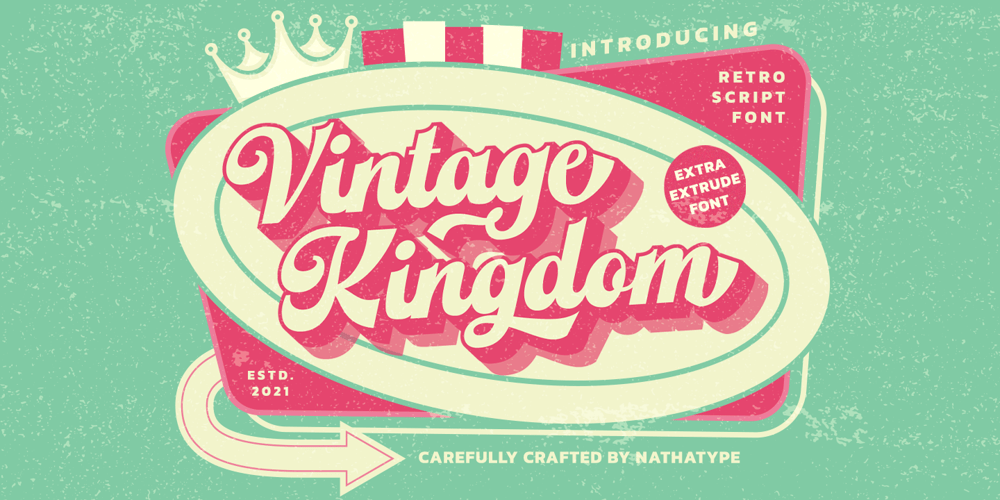
Vintage Kingdom Font Family was designed by Donis Miftahudin and published by Nathatype. Vintage Kingdom contains 2 styles and family package options. Are you ready to make your branding stand out? Do you dream of creating headings that stand out and inspire creativity, imagination, modernity, and endless fun? Looking for an elegant and stylish font? We’ve got what you want.Vintage Kingdom-A Script FontVintage Kingdom a gorgeous font designed with strong outlines and fat strokes to bring your branding to life and add a touch of retro and fun. This font features thick and angular letters that easy on the eyes and nice to look while it’s also easy to read. Vintage Kingdom becomes more special with extruding version option. Perfect to create amazing headings, logos, menus, social media graphics, and many more. Our font always includes Multilingual Support to make your branding reach a global audience. Features: Ligatures Stylistic Sets Swashes PUA Encoded Numerals and Punctuation Thank you for downloading premium fonts from Din Studio